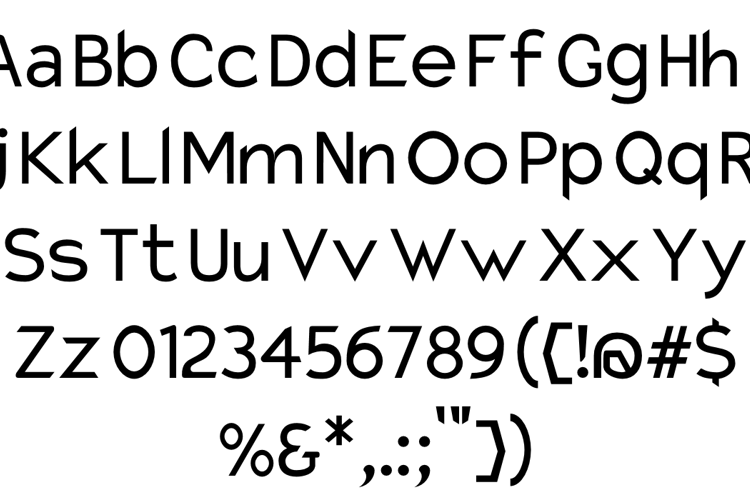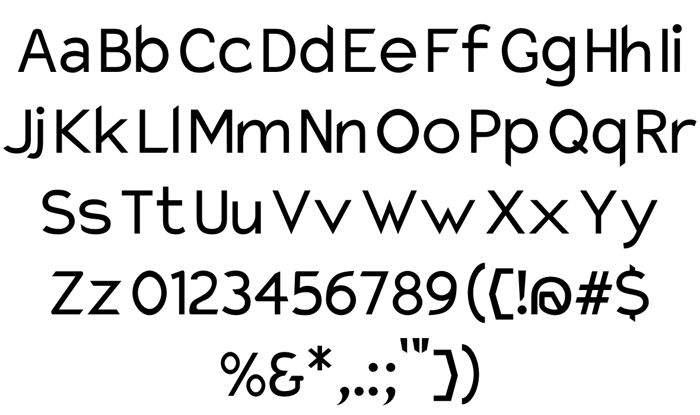
Charger Pro Font
Charger Pro is a new derivative of Charger by Jasper @ Cannot Into Space Fonts, with several improvements, and several weights and widths.